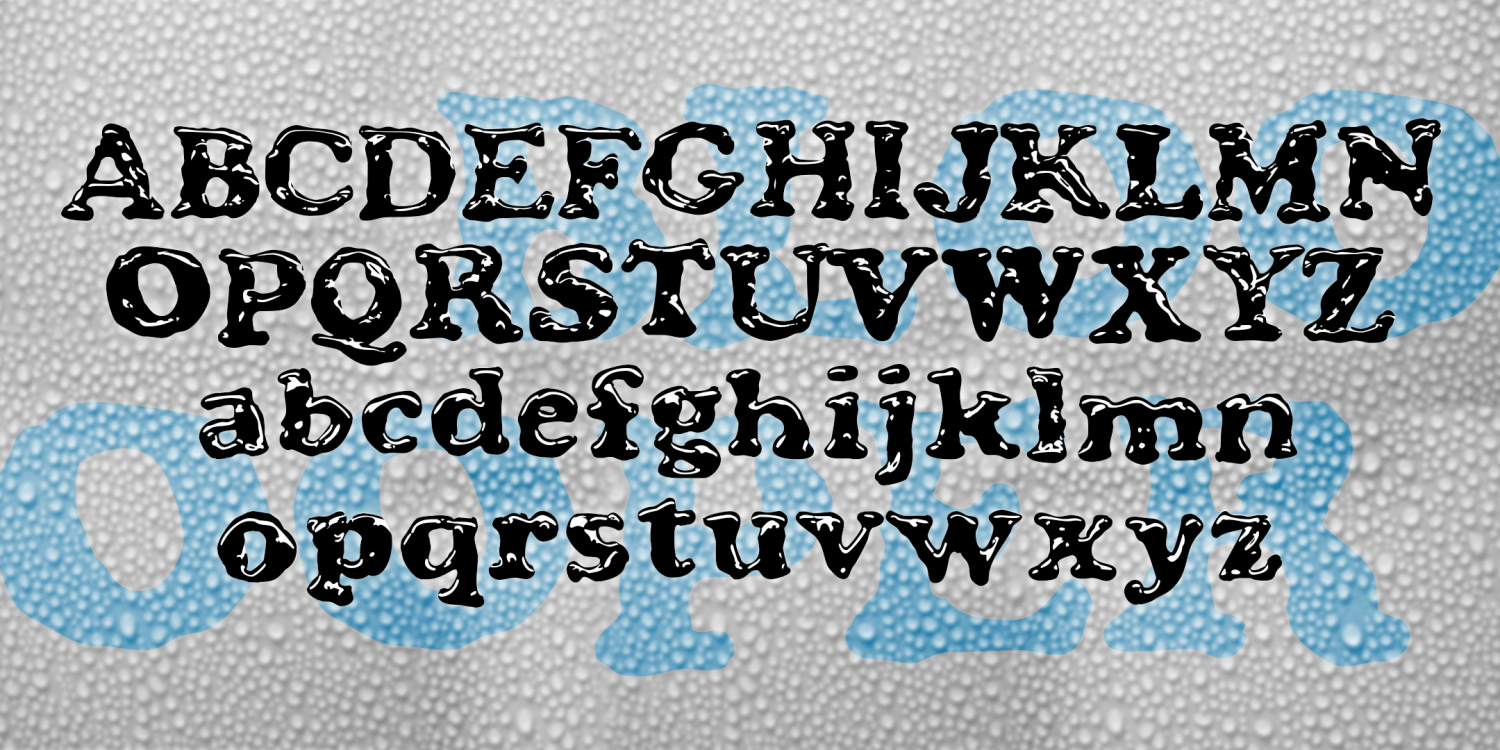
Blooper
About Blooper
Blooper was created to have the look of letters formed by puddles of shiny liquid. The general form was inspired by the classic font Cooper Black (Oswald Cooper, 1921). Although I probably could have faked it in Photoshop, I actually drew all the letters…